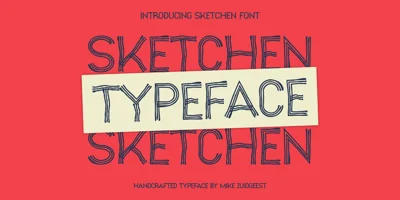
Sketchen Font
Sketchen Font is ideal for artistic sketchbook covers, creative design studios, architectural drafting materials, artist portfolio branding, sketch-based illustration projects, art supply packaging, design workshop signage, creative education materials, hand-drawn animation credits, and any inspiring project that celebrates the raw beauty and spontaneous creativity of artistic sketching and conceptual design processes.
What makes Sketchen Font exciting is its authentic artistic energy that captures the spontaneous creativity of initial design concepts and the raw beauty of artistic expression in its purest form. This typeface embodies the spirit of creative exploration with sketchy letterforms that seem drawn by an artist's hand, complete with the confident strokes and intentional imperfections that make hand-drawn work so compelling. The font's artistic character makes it perfect for brands and projects that want to communicate creativity, authenticity, and the inspiring process of bringing ideas to life through artistic expression.
The Sketchen Font family includes multiple weights and sketching variations, featuring light, regular, and bold versions along with rough textures and alternate characters that simulate different drawing tools and artistic techniques. This comprehensive collection allows designers to create authentically artistic typography that maintains the font's signature sketchy character while providing flexibility for various creative and educational design applications.
When exploring authentic hand-drawn typography, Sketchen Font represents an exceptional opportunity to work with a typeface that genuinely captures the spirit of artistic sketching and creative experimentation. This font demonstrates innovative design thinking by embracing the beautiful imperfections and organic flow that define both artistic sketching and the creative process of developing ideas through visual exploration.
Professional designers appreciate Sketchen Font for its ability to instantly communicate artistic authenticity and creative process across various design and educational platforms. The font's sketchy character makes it particularly effective for art schools, design agencies, and creative brands seeking to establish connections with audiences who value artistic process and the authentic beauty of hand-drawn creativity.
The enduring appeal of Sketchen Font lies in its perfect representation of artistic process and creative authenticity that continues to inspire designers and artists in our increasingly digital world. This typeface serves as a celebration of the fundamental importance of sketching in the creative process and the irreplaceable value of hand-drawn artistic expression.
For creative professionals working with artistic and educational brands, Sketchen Font represents the ultimate typography solution that brings authentic artistic energy and sketchy creativity to any application, ensuring designs reflect the spontaneous beauty and inspiring process that define the most meaningful artistic creation and design exploration.